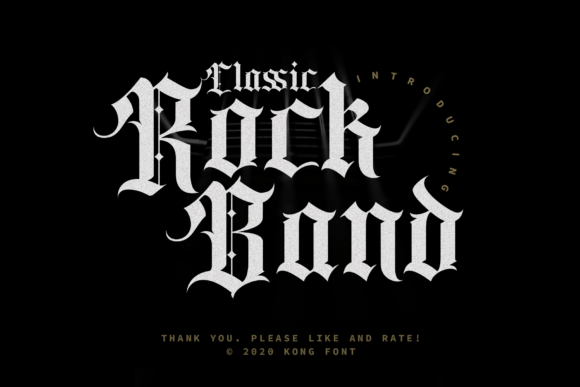
Looking for the perfect blackletter font to elevate your creative projects and catch everyone's attention? Look no further than Classic Rock Band Font! Created by Freebies, this font is the best choice for tattoo names and other designs that demand a bold and edgy look.
With its modern take on the classic blackletter style, Classic Rock Band Font is versatile enough to use in a wide range of projects, from logos and branding to social media graphics and more. And with compatibility in popular design tools like Photoshop and Silhouette Design Studio, this font is easy to use and perfect for both novice and experienced designers.
But Classic Rock Band Font isn't just versatile and easy to use – it's also incredibly eye-catching. The bold lines and sharp edges of this font make it perfect for grabbing attention and making a statement. Use it in your next project and watch as your designs become the talk of the town.